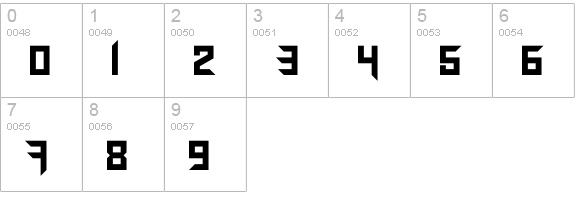
Virtual Rave Font Details
Virtual Rave is a free for personal use font in the Modern > Sci-Fi category, designed by Darrell Flood. It has been downloaded 170 times and is available for Windows, Mac and Linux.
Virtual Rave font is a vibrant and dynamic typeface that brings the energy and excitement of a rave party to your designs. With its bold, futuristic style and neon colors, this font is perfect for creating eye-catching graphics and posters that will make a statement.
Designed with creativity and innovation in mind, Virtual Rave font is a versatile choice for projects that need a modern and edgy look. Its unique shapes and energetic vibe will add a touch of excitement to any design, whether it's for a music event, club promotion, or any other project that needs a bold and lively font.